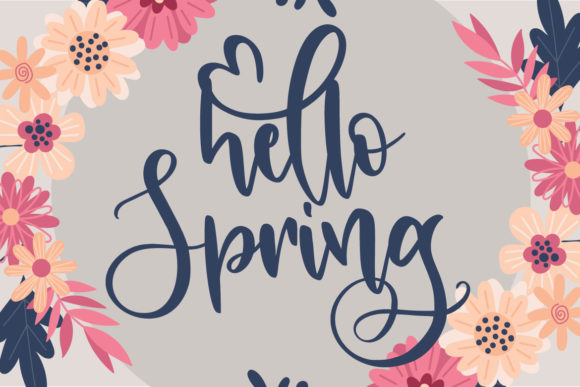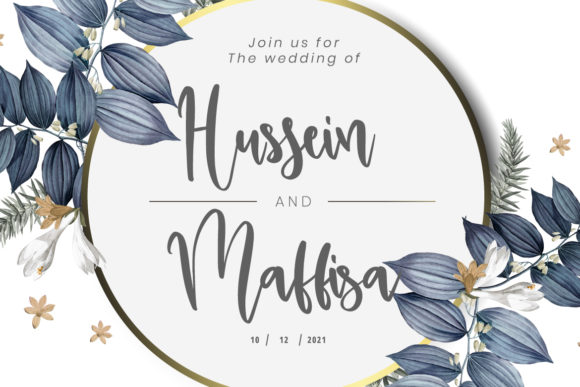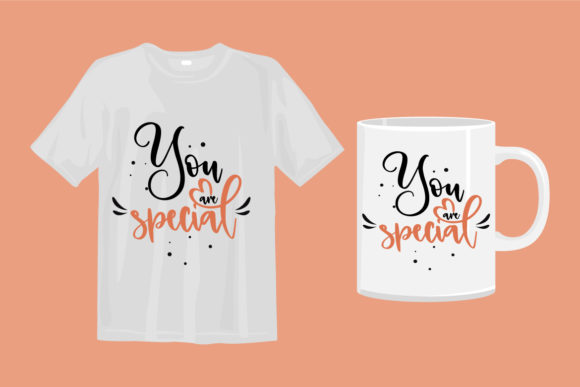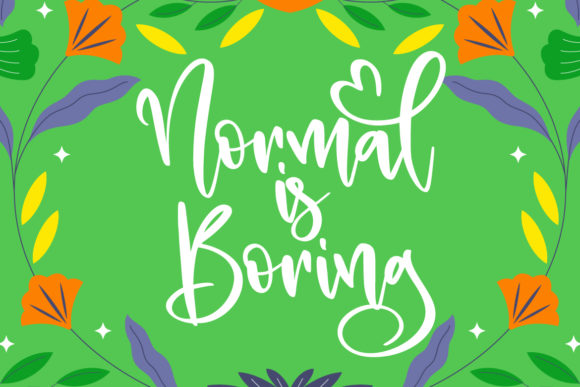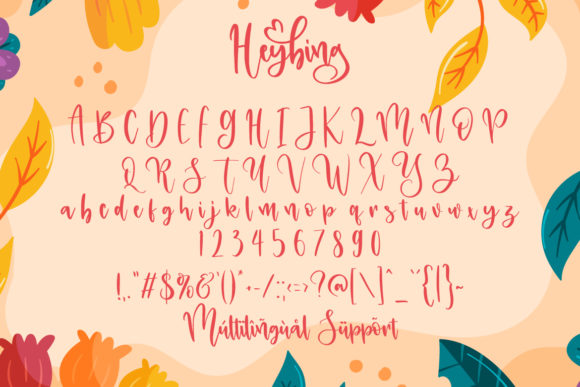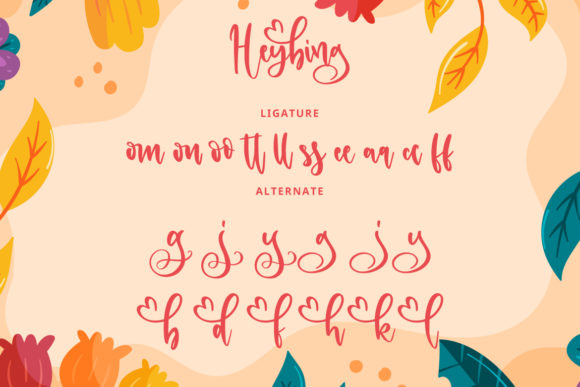
Heybing Font
About Heybing Font
Heybing is a modern handwritten font, carefully handcrafted to become a true favorite. Its casual charm makes it appear wonderfully down-to-earth, readable and, ultimately, incredibly versatile. Heybing features a varying baseline, smooth lines, gorgeous glyphs and stunning alternates.Add it to your most creative ideas and notice how it makes them come alive!